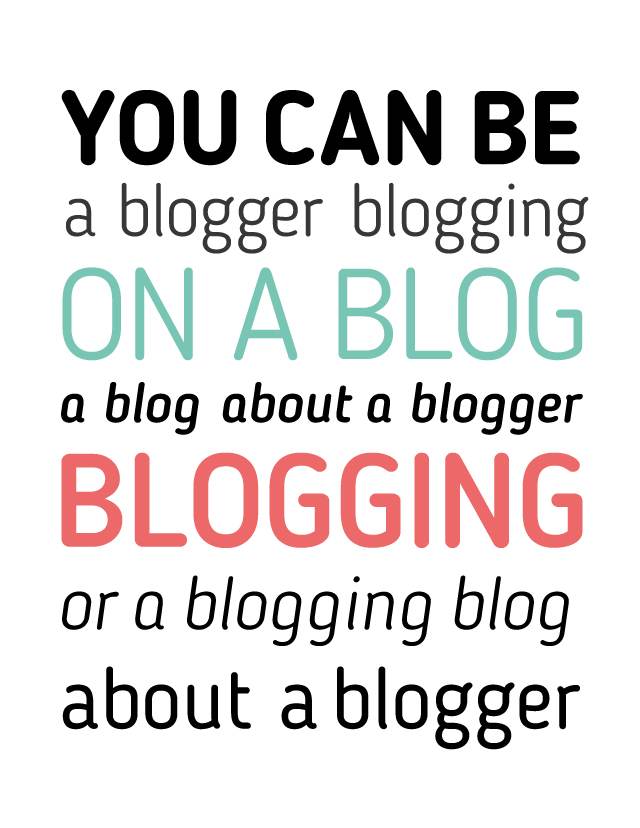
Blogger Sans
The font was designed by Sergiy Tkachenko as the FirstSiteGuide’s custom typeface, created primarily for the use in headlines of the website. However, they would like to release this font 100% free, that means you are Free to use it in any web design or blogging projects with one condition.
Blogger Sans Font